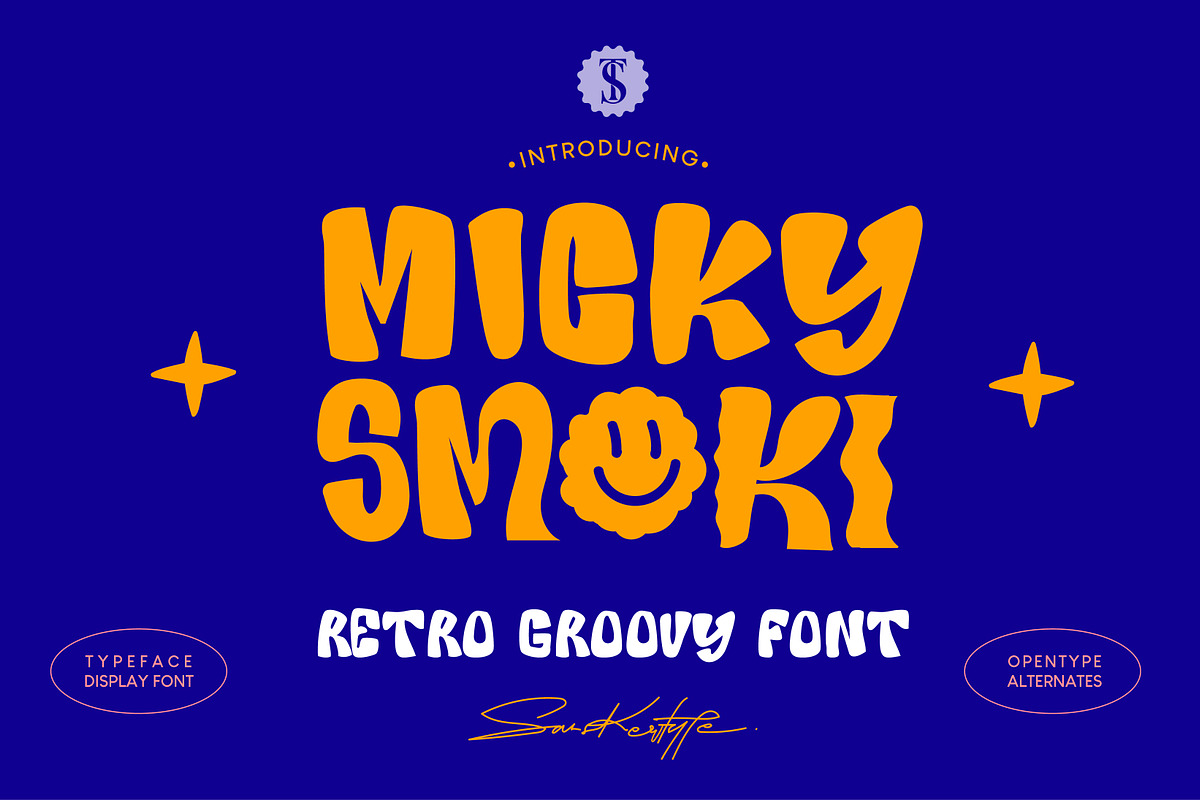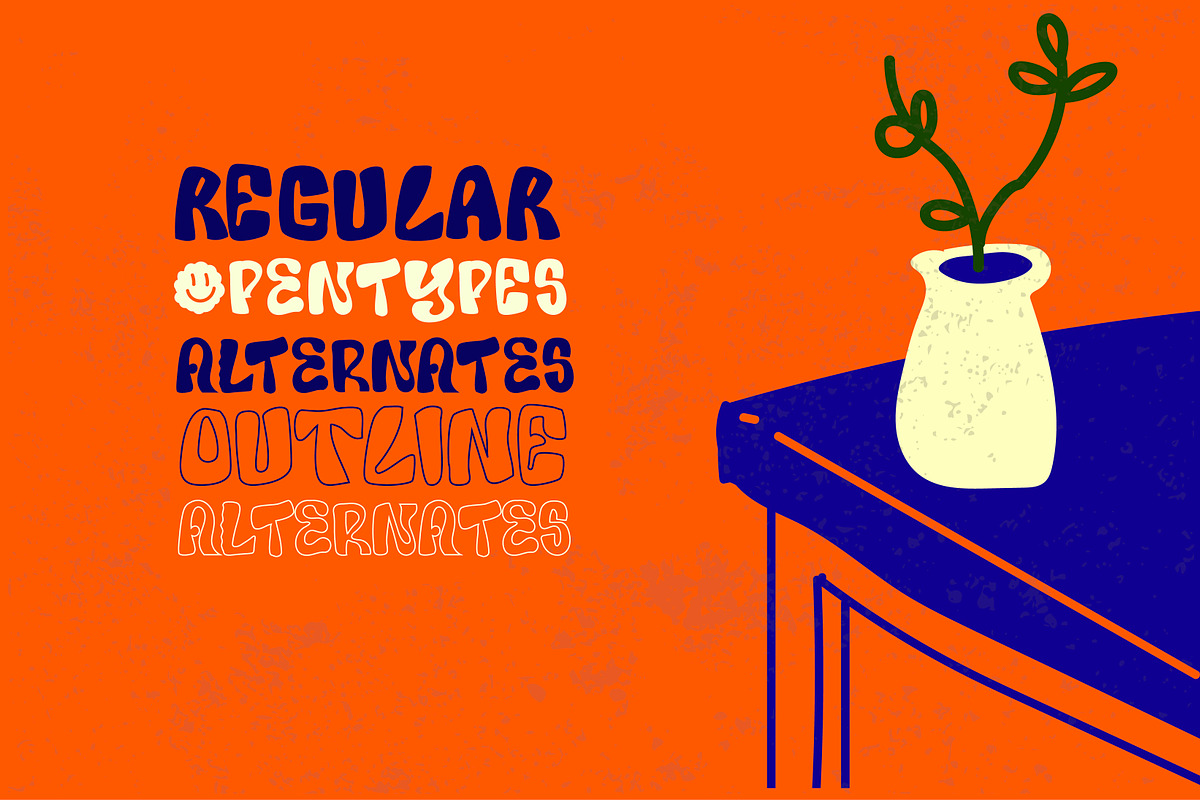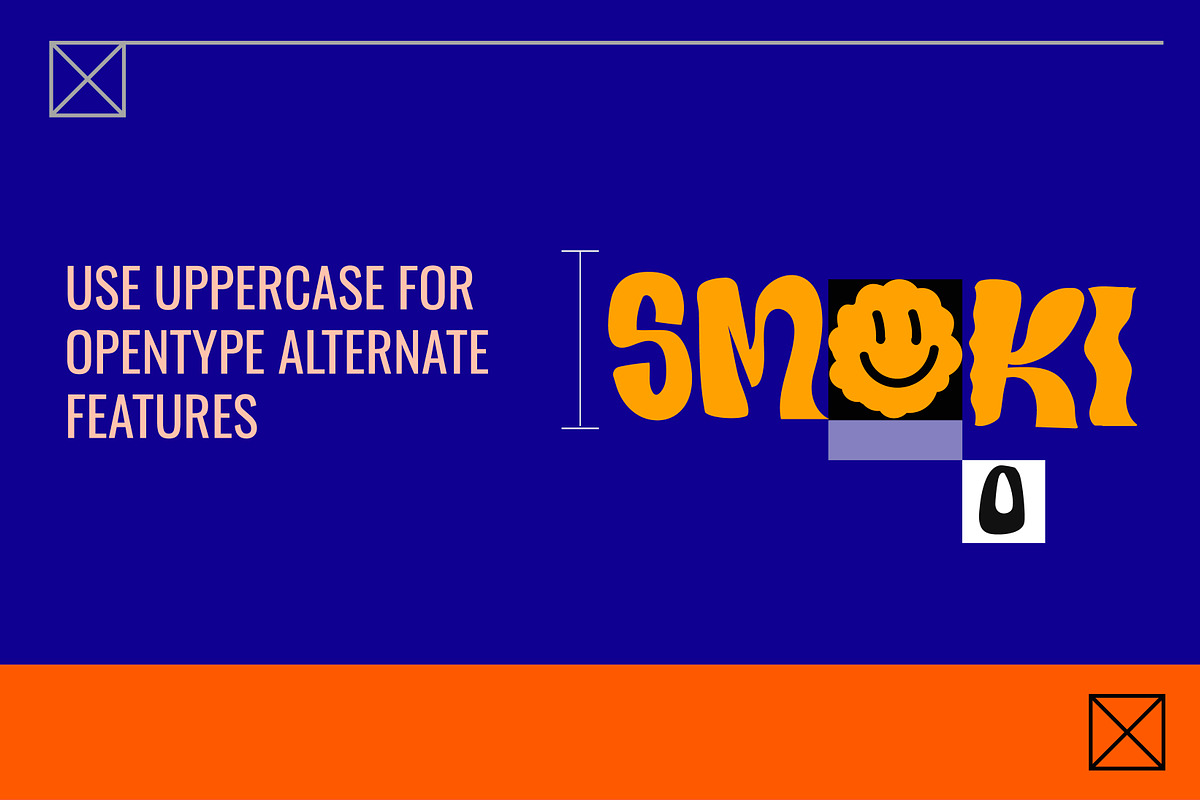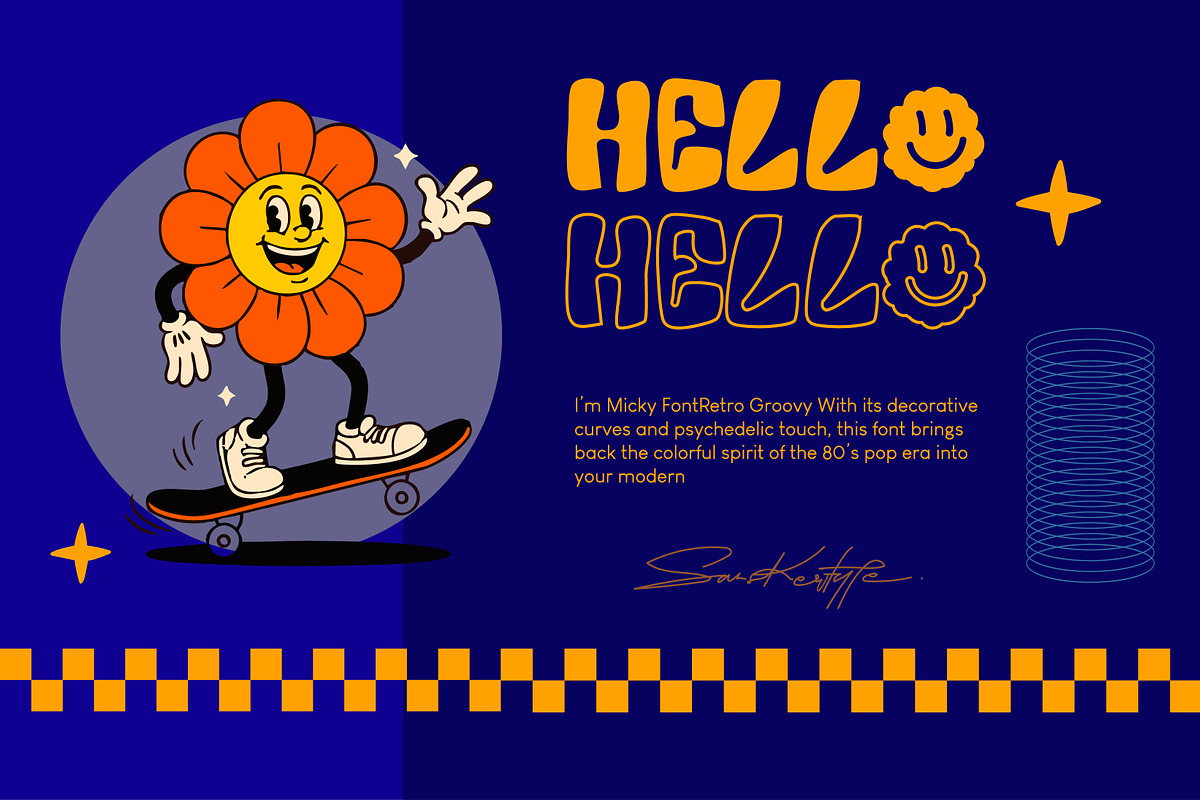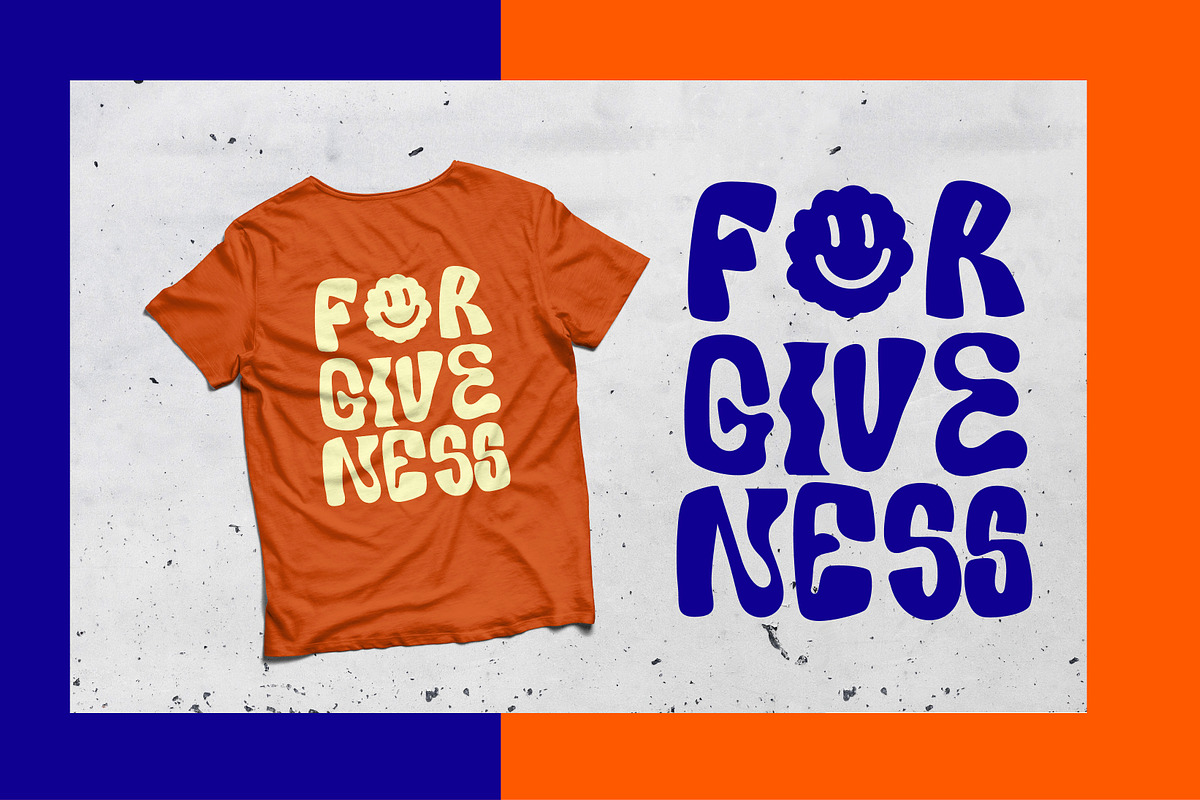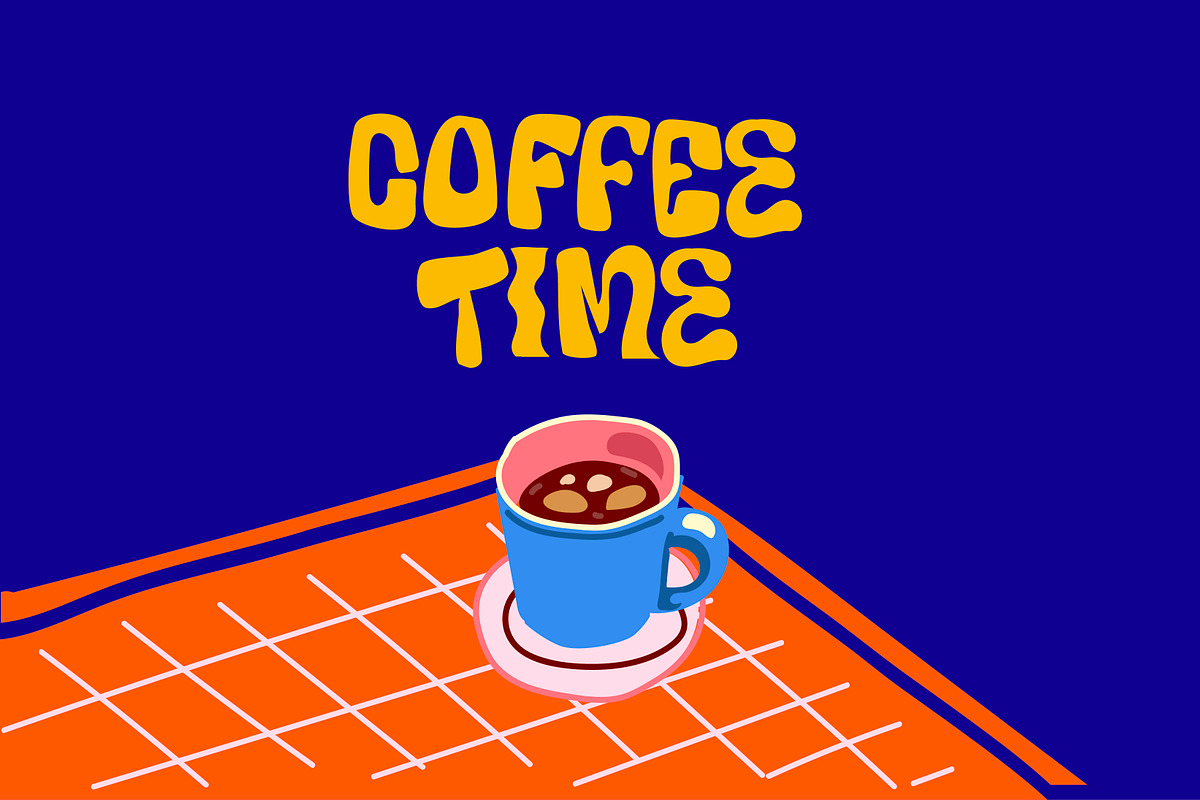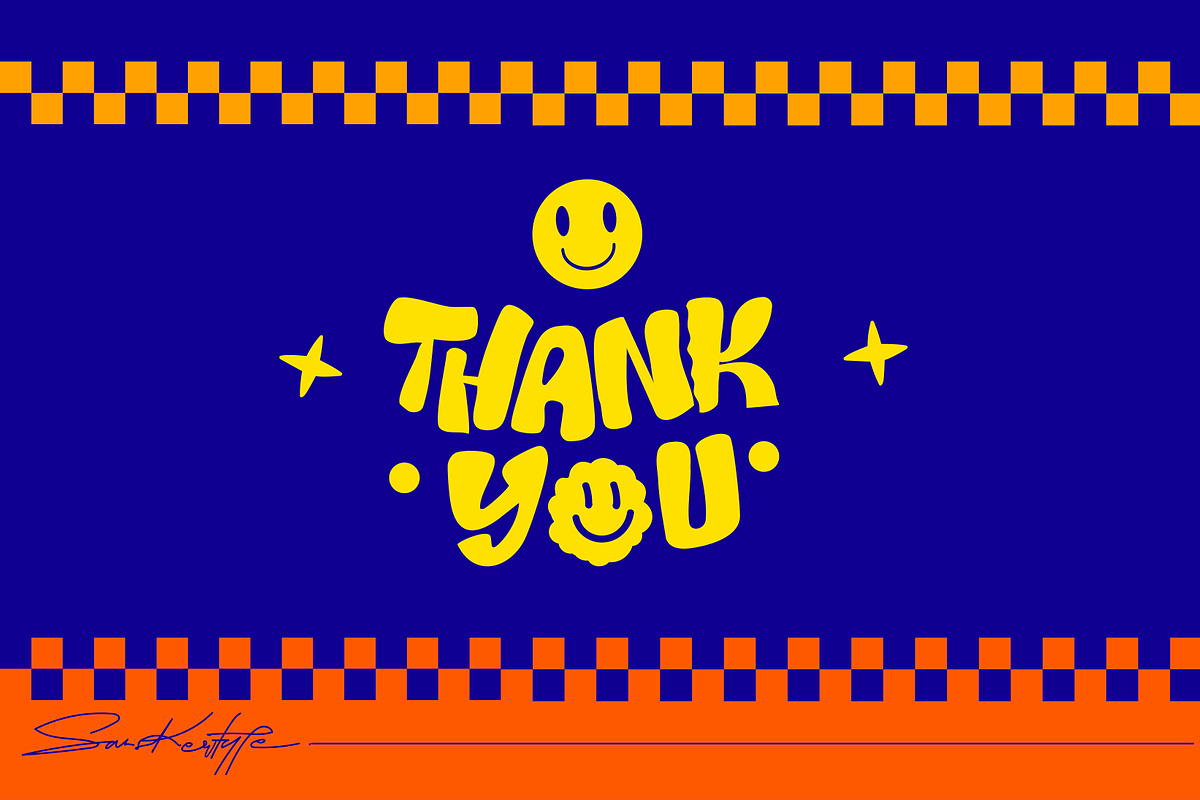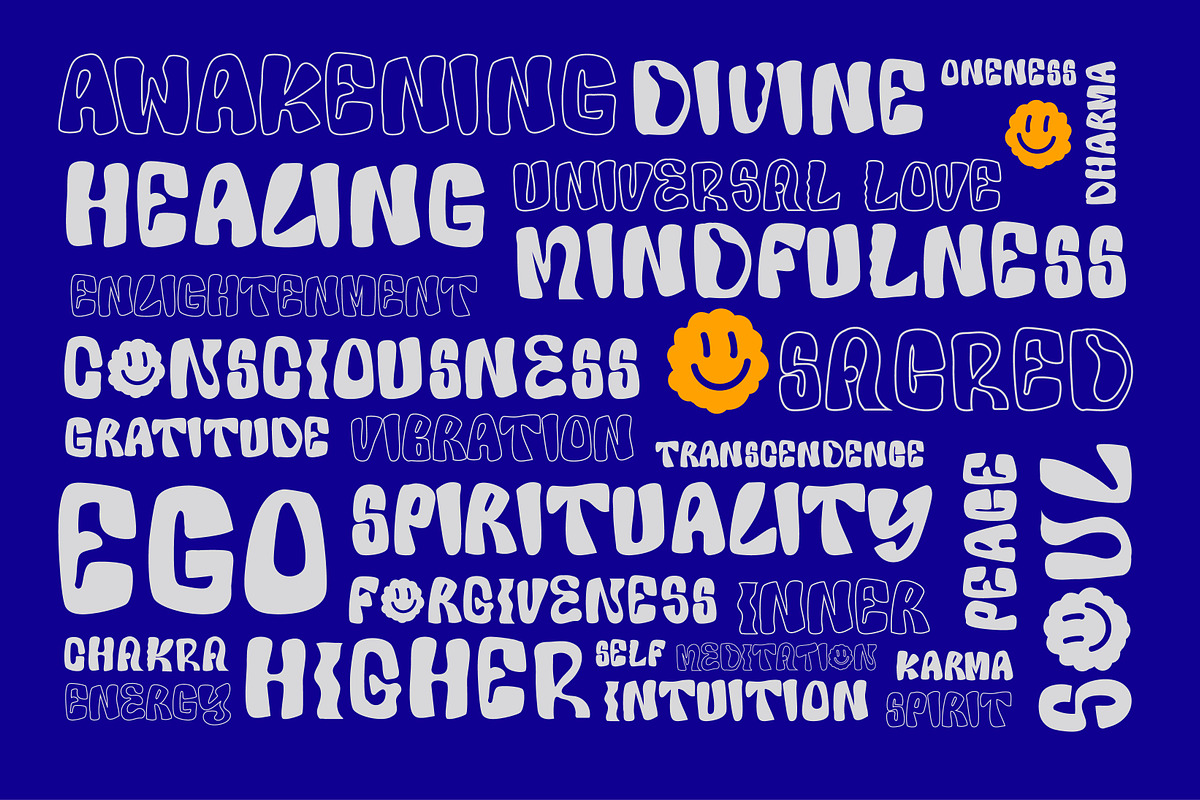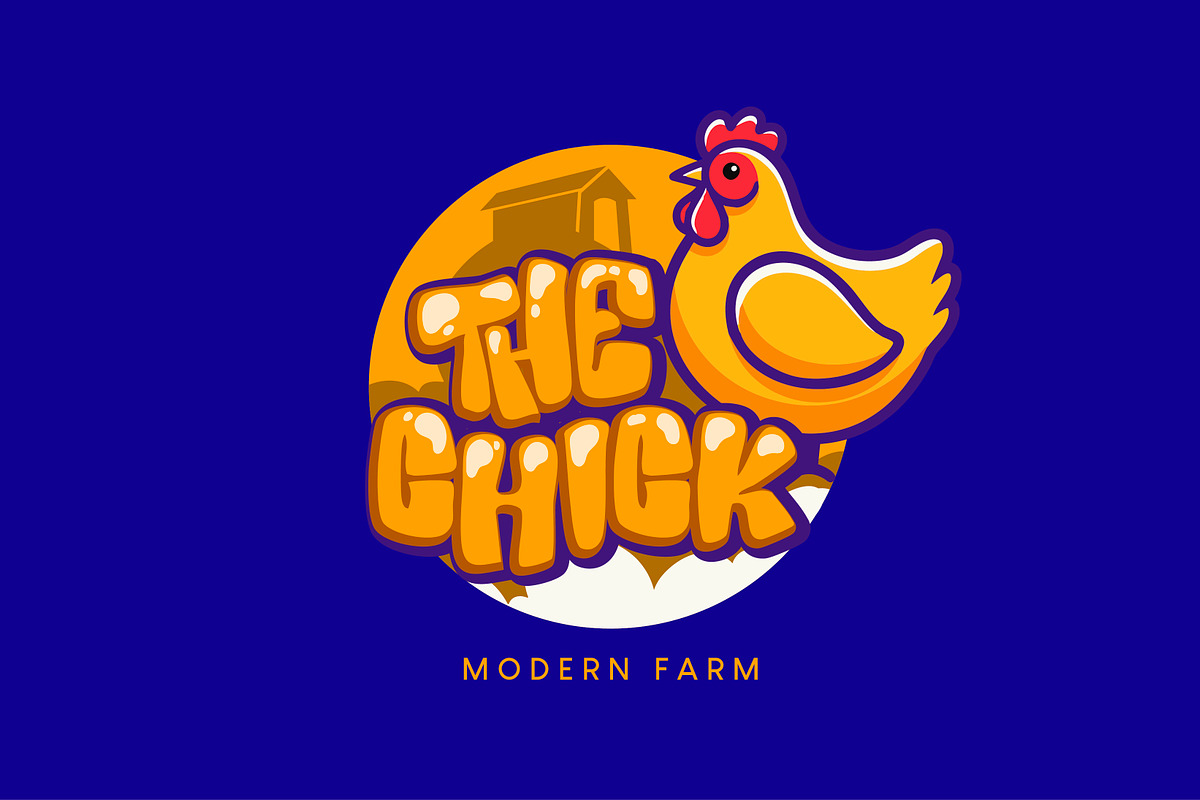
MickySmoki - psychedelic groovy font
MickySmoki is a retro groovy display font that brings a bold, fun, and playful vibe to your design projects. With its chunky letterforms, smooth curves, and unique alternates, this font captures the nostalgic spirit of the ’70s while staying fresh and modern.
Perfect for posters, album covers, branding, merchandise, social media graphics, and anything that needs a strong retro personality, MickySmoki will instantly make your designs stand out.
Let your creativity flow and add a touch of groovy energy with MickySmoki!
Make your design names pop with the modern trendy of MickySmoki—where style meets versatility.